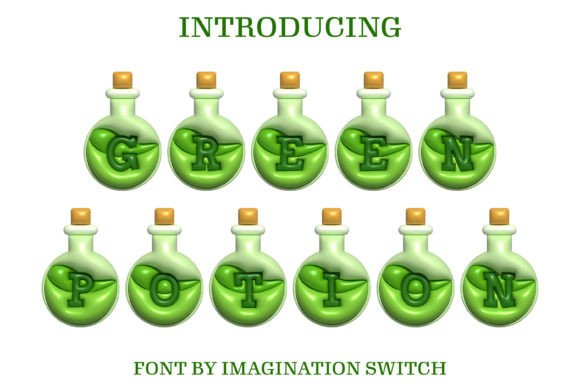
Step into a world of captivating typography with the Green Potion Font family – a collection of colorful fonts designed to infuse your designs with dimension and vitality. Unleash your creativity with a font family that's as vibrant as it is versatile, promising to transform your designs into visually stunning masterpieces.
With its clever use of color and 3D style, the Green Potion Font family instantly grabs attention and commands respect. Each character dances off the page, creating an illusion of depth that's sure to captivate your audience. As you explore the full set of characters – replete with uppercase, lowercase, and numbers – you'll find endless opportunities to express yourself in unique and captivating ways.
Whether you're crafting eye-catching print designs for posters, brochures, or flyers, or seeking to inject a touch of modern flair into your digital projects, the Green Potion Font family stands ready to elevate your work to new heights. Let your imagination run wild as you discover the limitless possibilities of this truly extraordinary font family.